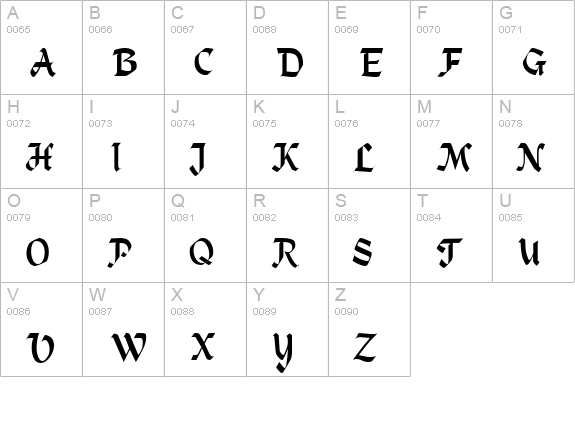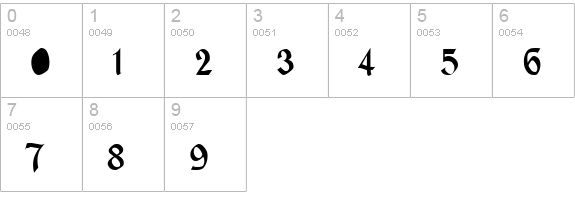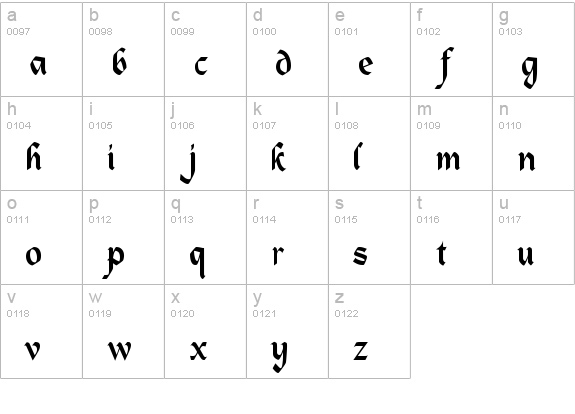
Heidelberg Regular Font Details
Heidelberg Regular is the standard, neutral variant in the Heidelberg typeface family \xE2\x80\x94 well suited to general body text, paragraphs, and standard typographic work.
Heidelberg Regular font is a sophisticated and versatile typeface that exudes elegance and professionalism. The clean lines and balanced proportions of this font make it perfect for various design projects, from print materials to digital graphics. The Heidelberg Regular font features a timeless appeal, combining classic letterforms with a contemporary twist. Its legibility and readability are exceptional, ensuring that your message is conveyed with clarity and impact. This font's versatility shines through in its ability to adapt to different design styles and applications. Whether you need a refined and polished look for a corporate logo or a clean and modern aesthetic for a website, Heidelberg Regular font has got you covered. One of the most impressive aspects of Heidelberg Regular font is that it is freely available to download at FontsMarket.com. This means that you can access this exceptional font without any cost, making it an excellent choice for budget-conscious designers or anyone in need of a high-quality typeface. So, if you're searching for a font that effortlessly combines elegance, versatility, and affordability, look no further than Heidelberg Regular font. Download it for free at FontsMarket.com and elevate your design projects to new heights.